Building Your Brand’s Visual Properties
When creating a corporate image for our clients brands, we focus on building unique brand properties that can be leveraged to become brand assets. A brand’s typeface is one of the visual properties we incorporate into the brand design process, both because type can be a powerful and unique part of a brand’s visual messaging, and because for most brands, the potential of type is entirely overlooked.
Don’t Get Me Wrong, We Love Helvetica
The most common typeface in current brand design is Helvetica or one of its close relatives such as Arial. Whilst Helvetica is a beautifully designed contemporary font, it is what we call a ‘Neutral Face’ – Neutral because it is a clean font with little personality one way or the other, and Neutral because it is found so commonly representing such a range of brands that it is almost impossible to imbue it with distinction or individuality.
Such a Shame
The shame it is that there are infinite type possibilities for brands – restricted only by the creativity and consideration of your brand’s creative agency. Usually this is the result of brand design being left to those more skilled in other areas such as advertising agencies or traditional graphic design studios. Specialist brand agencies with the skills to translate brand strategy into brand identity understand the role customized typography can play in the creation of unique and memorable brands.
Aiming for the Sky
Whilst the examples we’ve collected of the 25 best custom-designed typefaces wont be suitable for all brands in all markets, they do provide a powerful challenge to all brands to ask themselves the big question: “How hard are our brand’s visual assets working for us?”
Dripping Chocolate font by Kimberley Reynolds
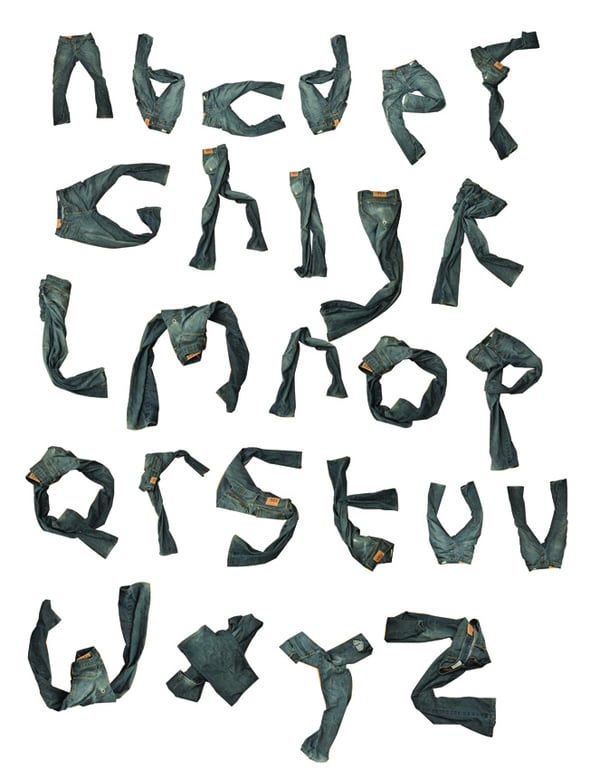
Ants in Pants font by Steven Vanscoy
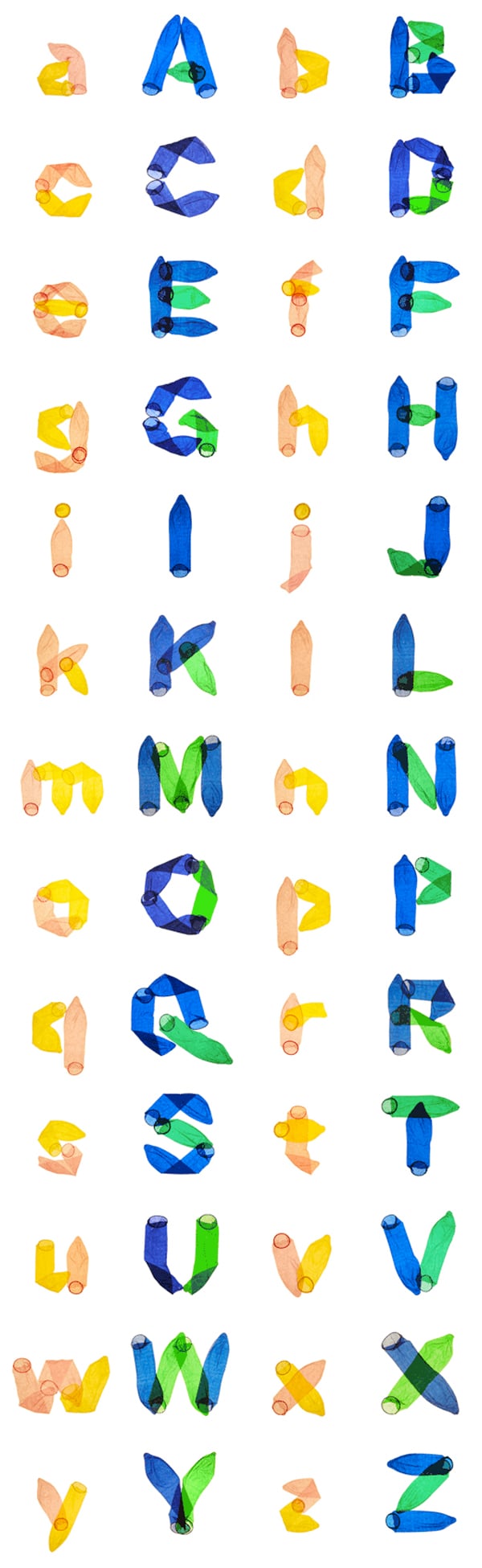
Come Together font by Satoru Nihei
Alfabet in huid (typeface in skin) by Thijs Verbeek
Egg font by Superscript
Fingertype by Jonathan Looman
Folded font by B.U.S.K.
Bent font by Avraham Cornfield
Toyota’s IQ font by Pierre & Damien
Hairy Alphabet by Craig Ward
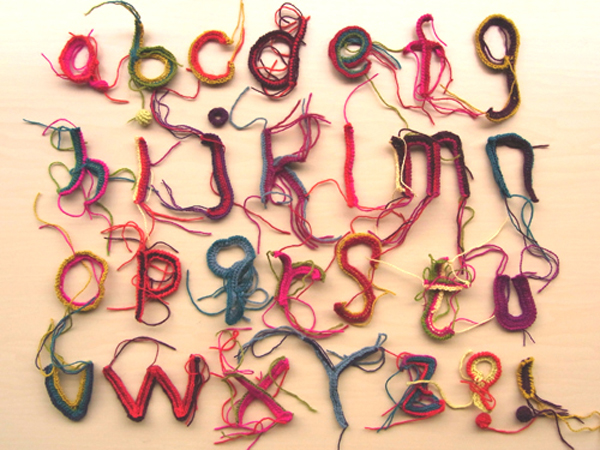
Thread font by Am Tm Mitsuko
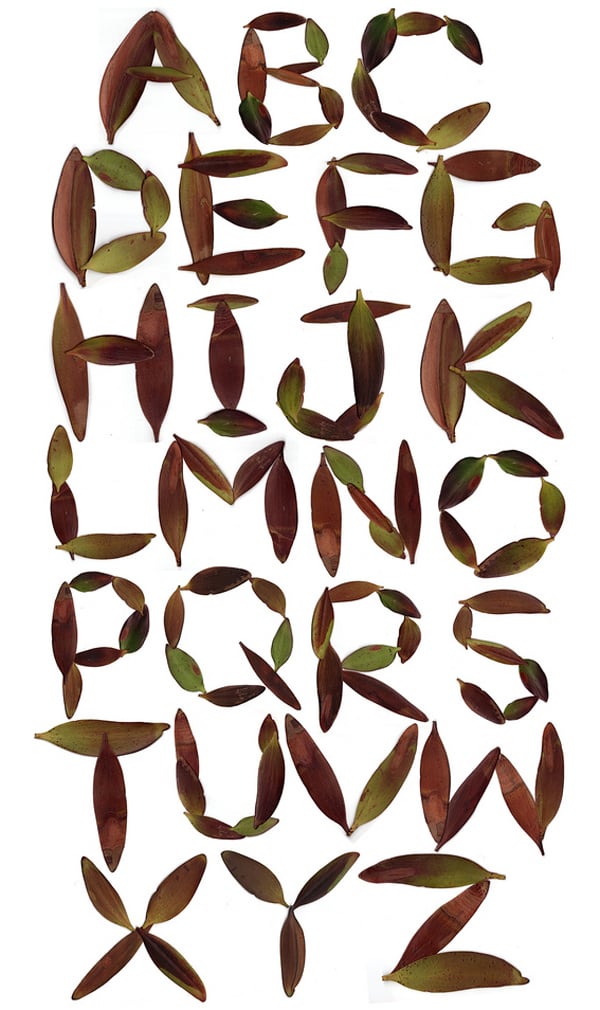
Leaf font by Bawk Bawk
House Number font by Superscript
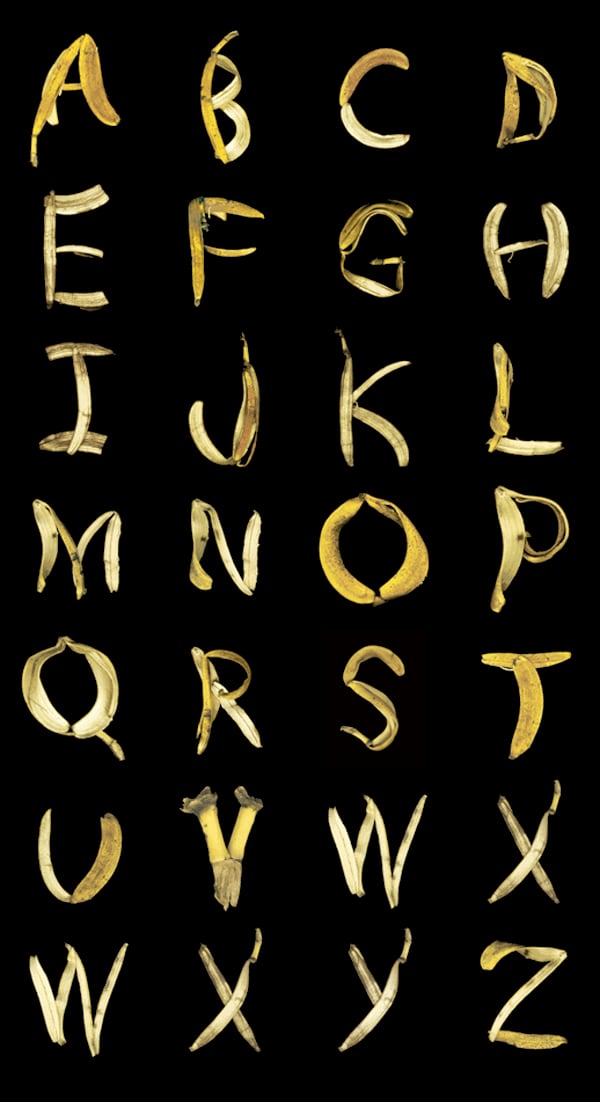
Jonana font by Jennifer Stucker
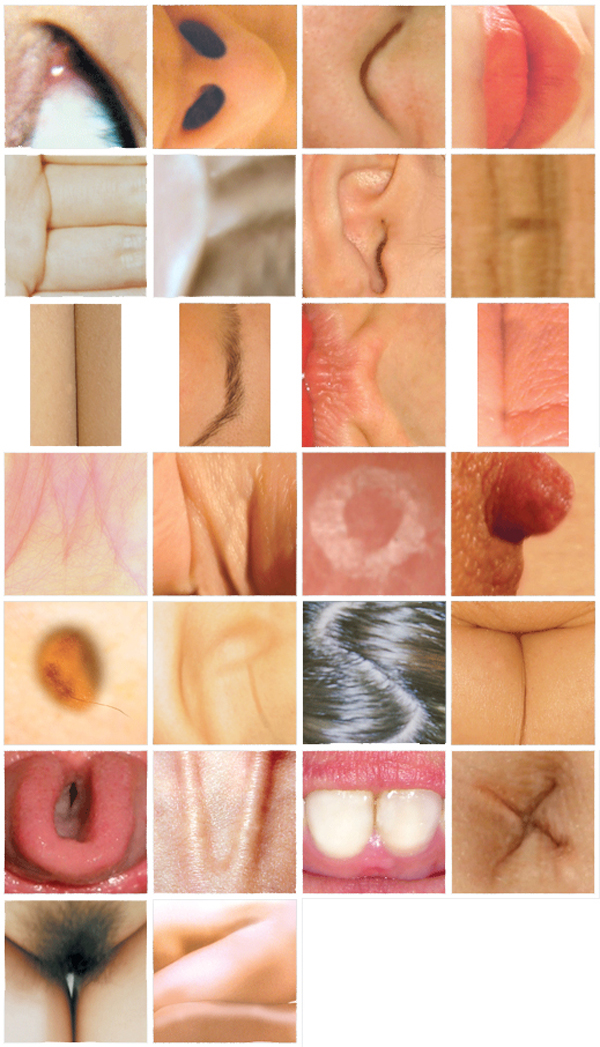
Bodyface font by Kiyoka Katahira
Mojave by Rudy Vanderlans
Touchy-Feely by Rick Valicenti
Pixel-It by Jessica Nebel
Value Pack font by Robert Bolesta
Take a Seat by Amandine Alessandra
Sock Alphabet font by Tony Venne
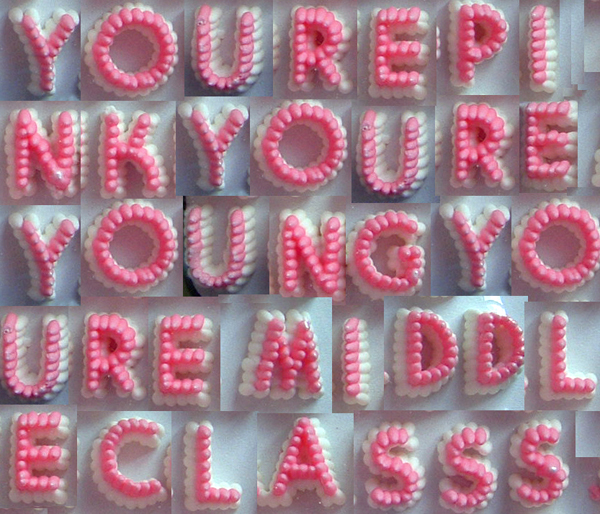
Sweet Alphabet font by Unknown Designer
Wearable Type font by Amanda Alessandrine
Karamel Sans by Marta Maštálková
PantyRaid by Jennifer Mahanay & Gina Vieceli-Garza
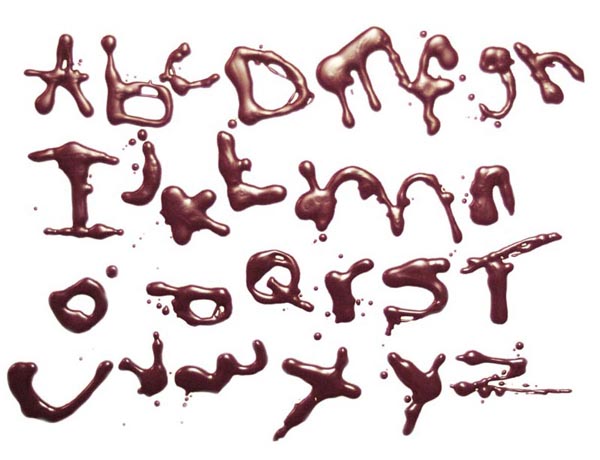
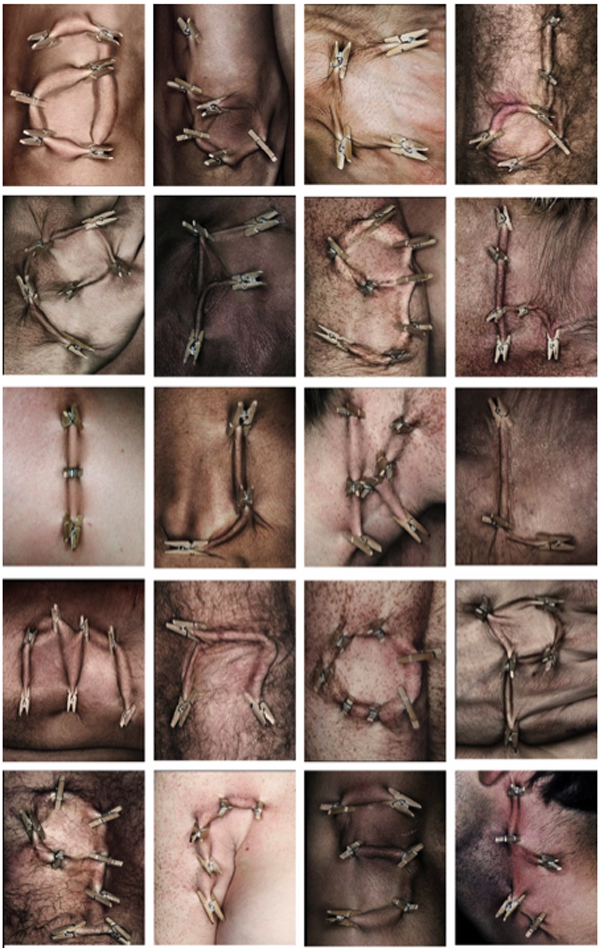
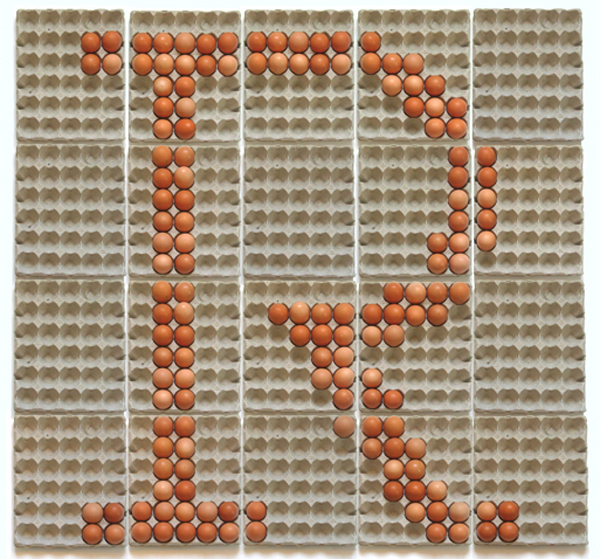
Some great creative typefaces here. Wearable Type by Amanada Alessandrine by Amanda Alessandrine is mt favorite. Great stuff!
Cool – the typefaces can layer a whole new depth to the message – Jonana ‘Healthy’, pantyraid ‘sensuous’.
You’re right Malcolm – a whole lot of personality too. The panty raid font is cheeky/mischevous/develish/naughty. They’re packed full of brand meaning.